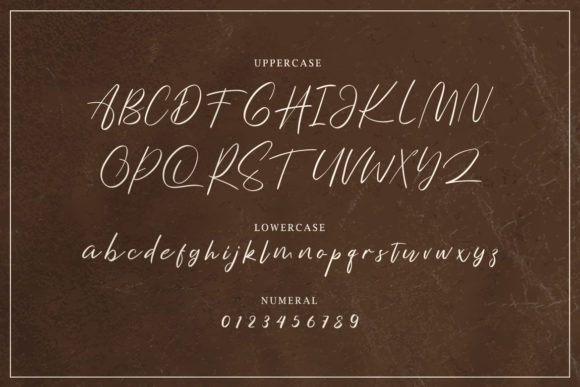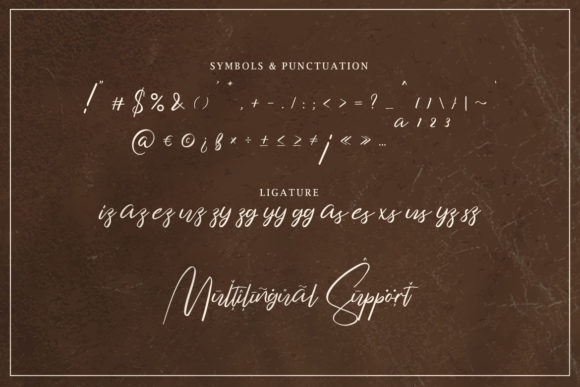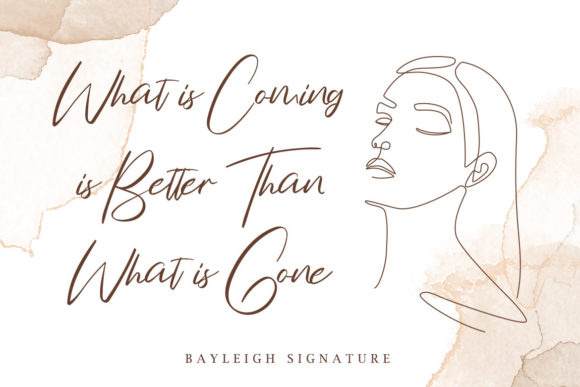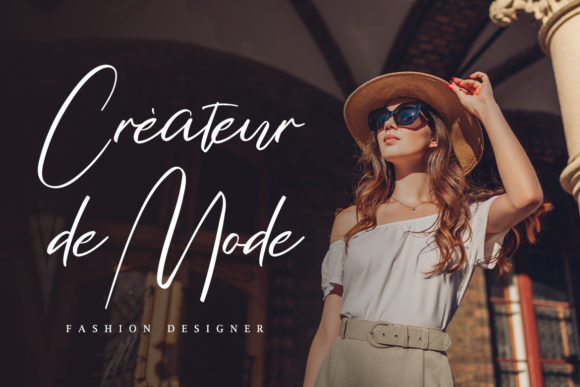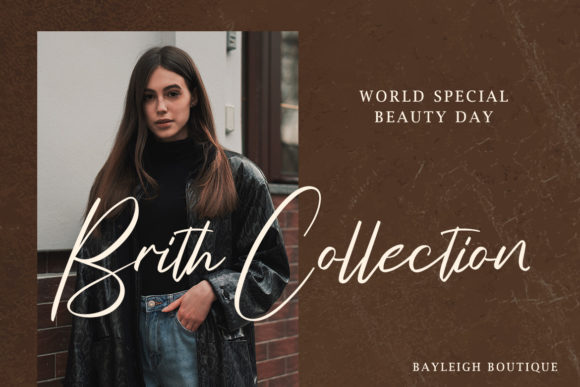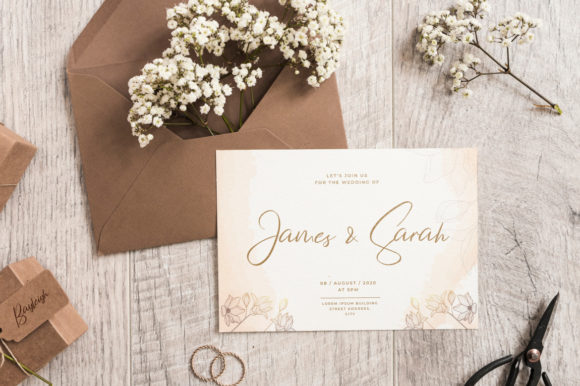
Introducing Bayleigh Font: Elevate Your Designs with Elegance and Sophistication
Are you tired of using the same old fonts in your designs? Do you want to add a touch of elegance and sophistication to your projects? Look no further than Bayleigh Font, a stunning script font that is sure to take your designs to the next level. Inspired by timeless classic calligraphy, Bayleigh is an elegant script font with a contemporary atmosphere and impeccable form.
What Makes Bayleigh Font So Special?
Bayleigh Font is not just another font – it’s a work of art. Designed to enhance the beauty of your projects, Bayleigh is the perfect blend of classic and modern. Not too thin and not too thick, this font is balanced and varied, making it perfect for a wide range of design applications. Whether you’re working on a logo, branding, packaging, or any other design project, Bayleigh Font is sure to impress.
Key Features of Bayleigh Font
- Elegant Script Style: Bayleigh Font features an elegant script style that is perfect for adding a touch of sophistication to your designs.
- Contemporary Atmosphere: With its modern and fresh feel, Bayleigh Font is perfect for designers who want to create designs that are both classic and contemporary.
- Impeccable Form: Bayleigh Font is designed with impeccable form, ensuring that your designs look polished and professional.
- Balanced and Varied: With its balanced and varied strokes, Bayleigh Font is perfect for creating designs that are both visually appealing and easy to read.
Why Choose Bayleigh Font?
So why choose Bayleigh Font over other fonts? Here are just a few reasons:
- Unique and Versatile: Bayleigh Font is a unique and versatile font that can be used in a wide range of design applications.
- Easy to Read: Despite its elegant and sophisticated style, Bayleigh Font is easy to read, making it perfect for body text and headlines.
- High-Quality Design: Bayleigh Font is designed with high-quality in mind, ensuring that your designs look professional and polished.
How to Use Bayleigh Font in Your Designs
Using Bayleigh Font in your designs is easy. Here are a few tips to get you started:
- Pair it with Other Fonts: Bayleigh Font pairs perfectly with other fonts, making it easy to create stunning font combinations.
- Use it for Headlines and Titles: Bayleigh Font is perfect for headlines and titles, adding a touch of elegance and sophistication to your designs.
- Experiment with Different Colors and Textures: Bayleigh Font looks great in a variety of colors and textures, so don’t be afraid to experiment and find the perfect look for your design.
In conclusion, Bayleigh Font is a stunning script font that is sure to elevate your designs to the next level. With its elegant and sophisticated style, impeccable form, and balanced and varied strokes, Bayleigh Font is perfect for designers who want to create designs that are both classic and contemporary. So why wait? Download Bayleigh Font today and start creating stunning designs that will leave a lasting impression.
- Font Type: Script Font
- Font Style: Elegant, Sophisticated
- Q: What is Bayleigh Font?